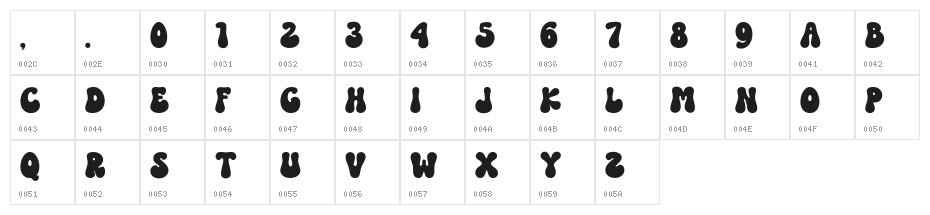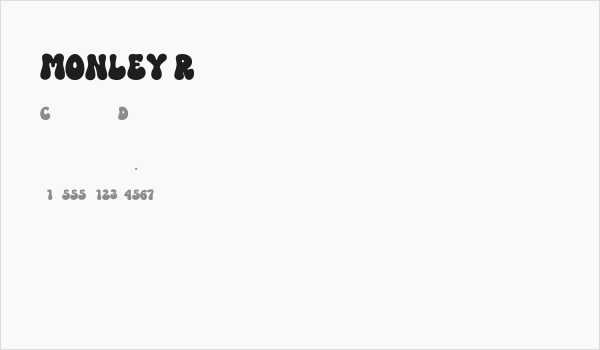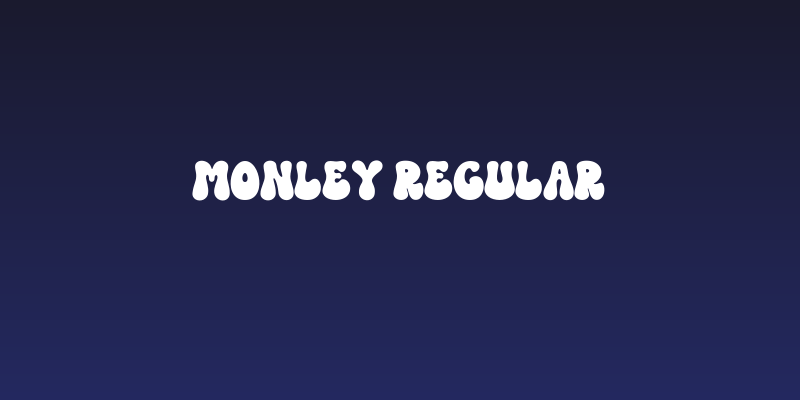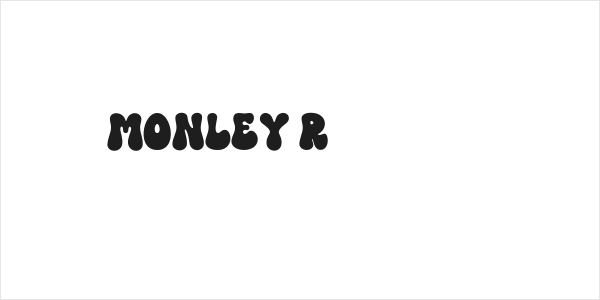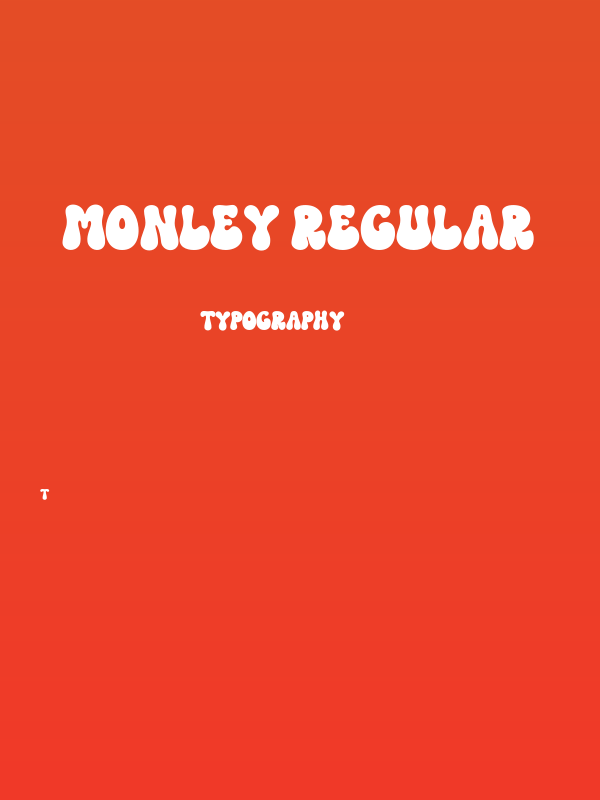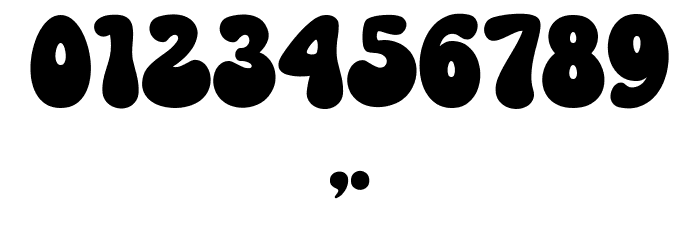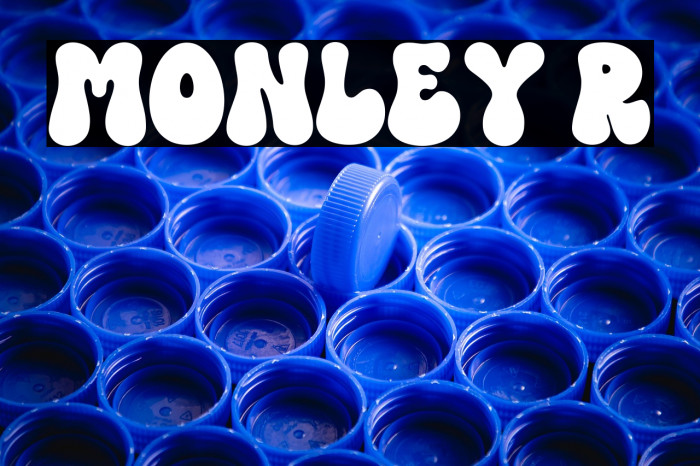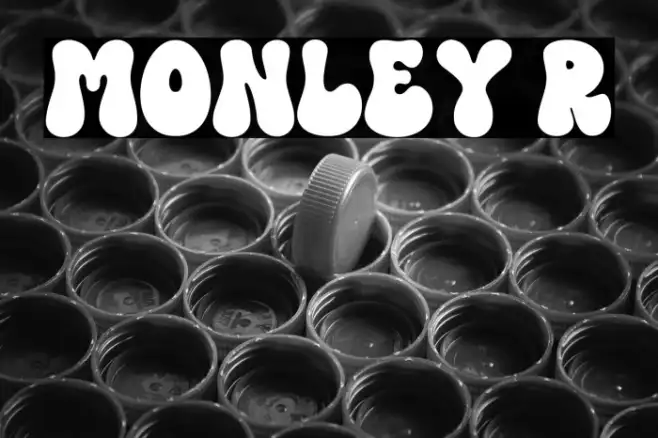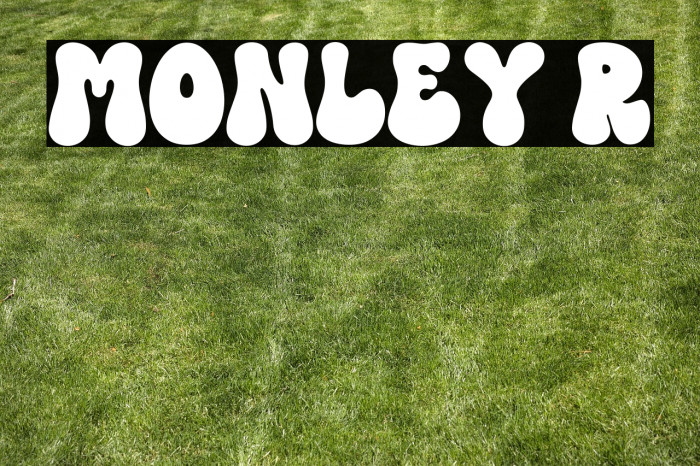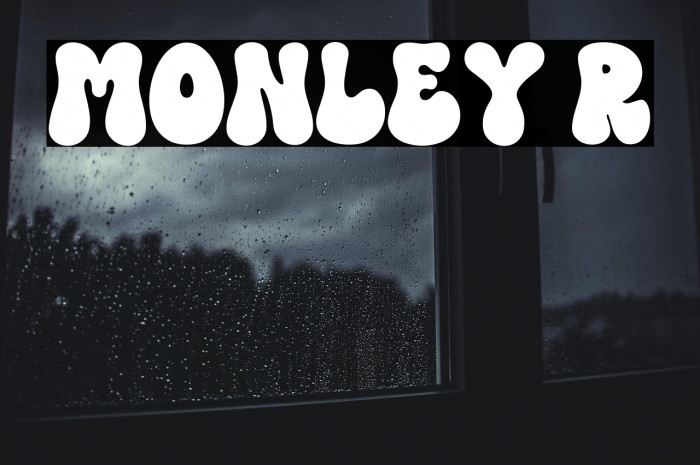
MONLEY Regular Font
MONLEY Regular Description
This playful and bold font features rounded, bubble-like characters that exude a sense of fun and whimsy. The letters are thick and substantial, with a consistent stroke width that gives the font a cohesive and unified appearance. The exaggerated curves and soft edges contribute to its friendly and approachable style, making it ideal for projects that aim to convey a lighthearted or youthful vibe. The font's unique design ensures that it stands out, capturing attention with its distinctive and memorable look.
| Overall Style | Playful |
| Proposed Projects | Perfect for children's books, playful branding, party invitations, and casual posters. |